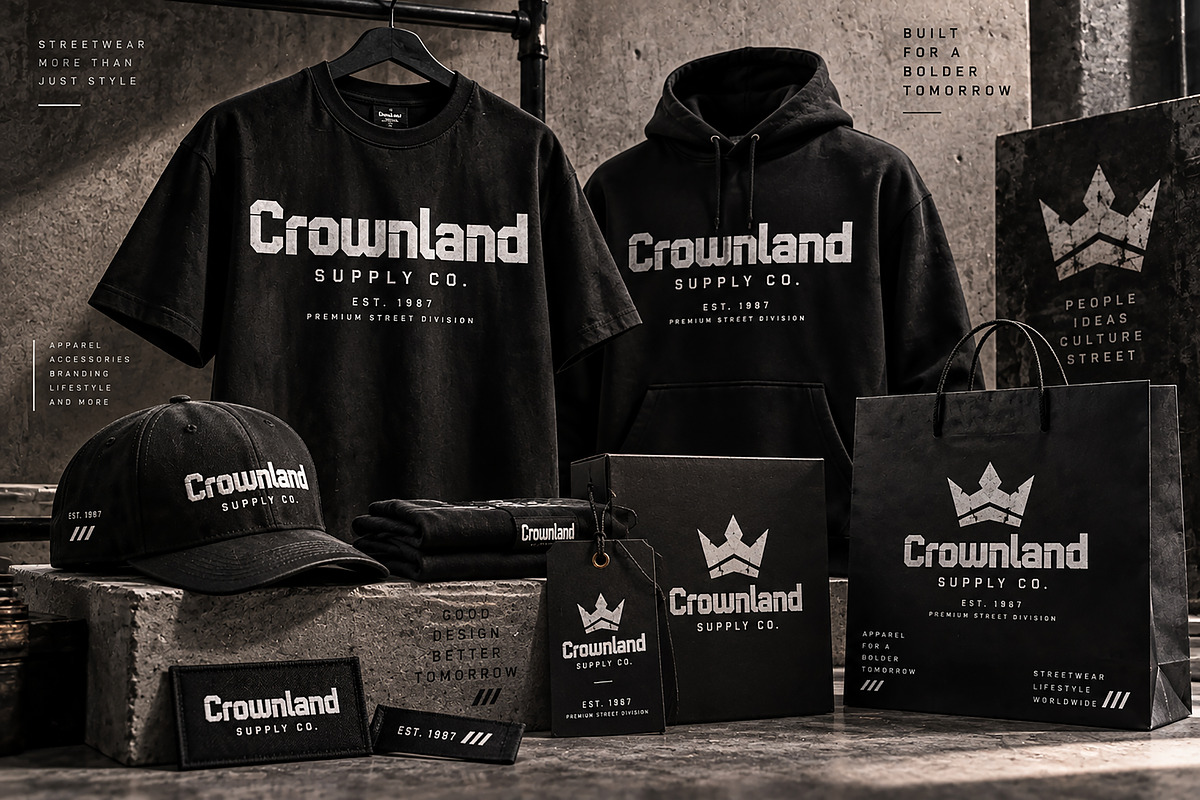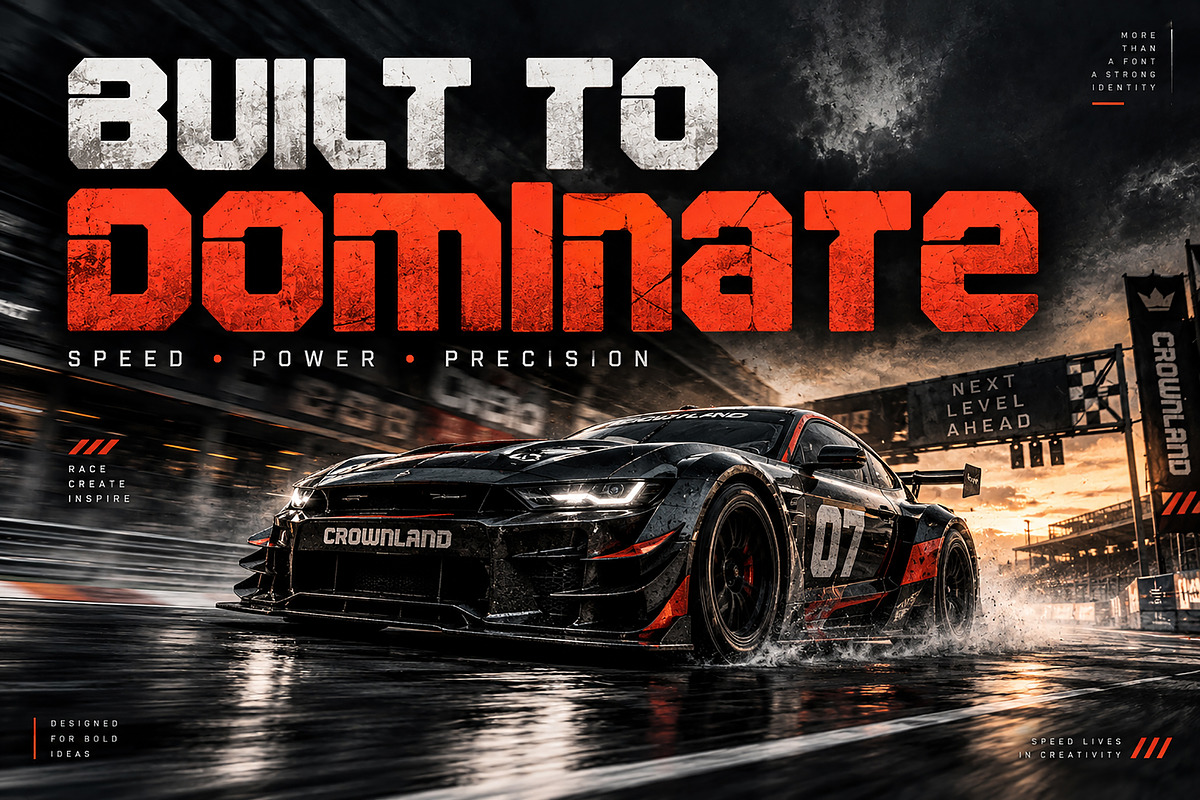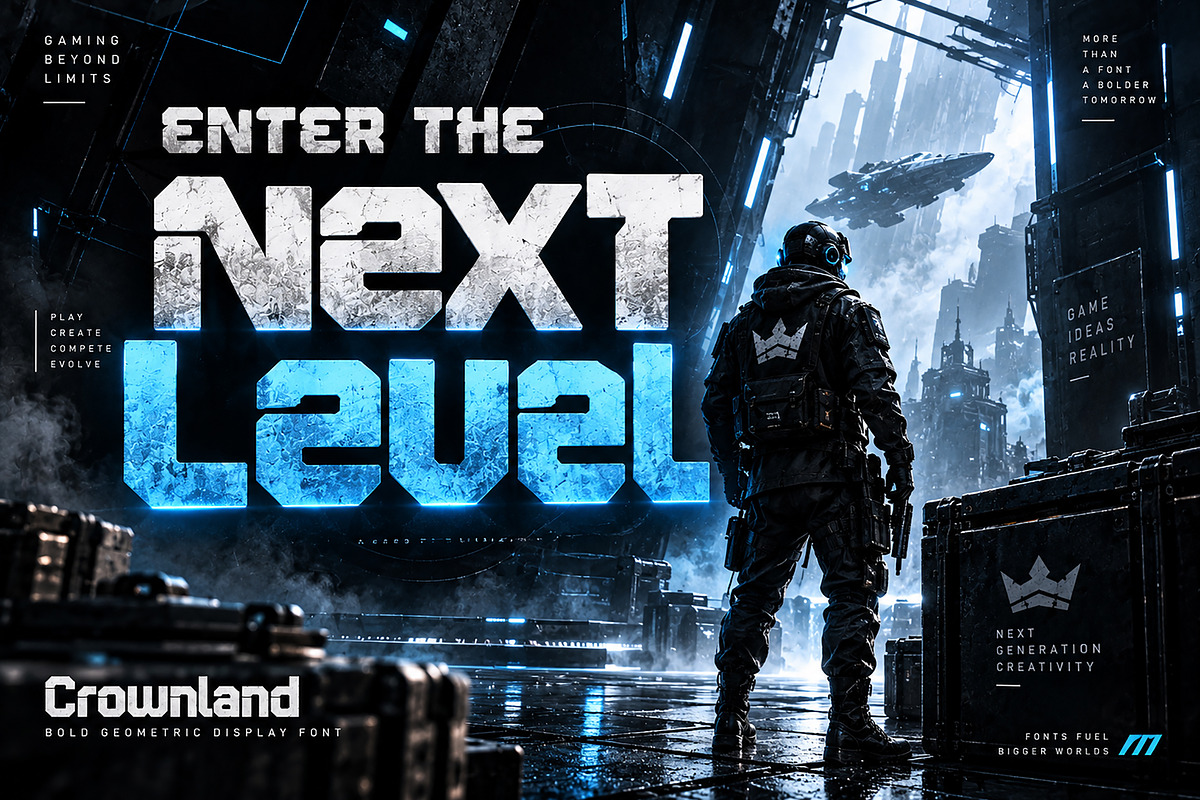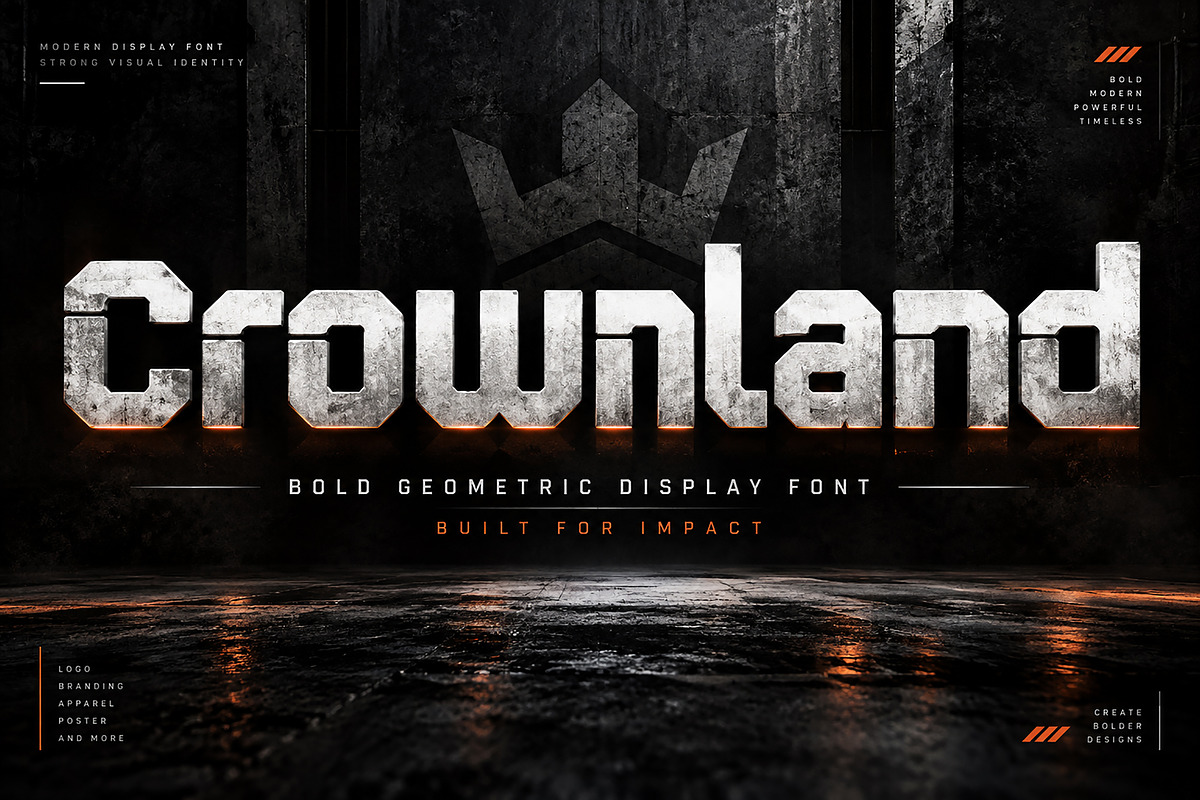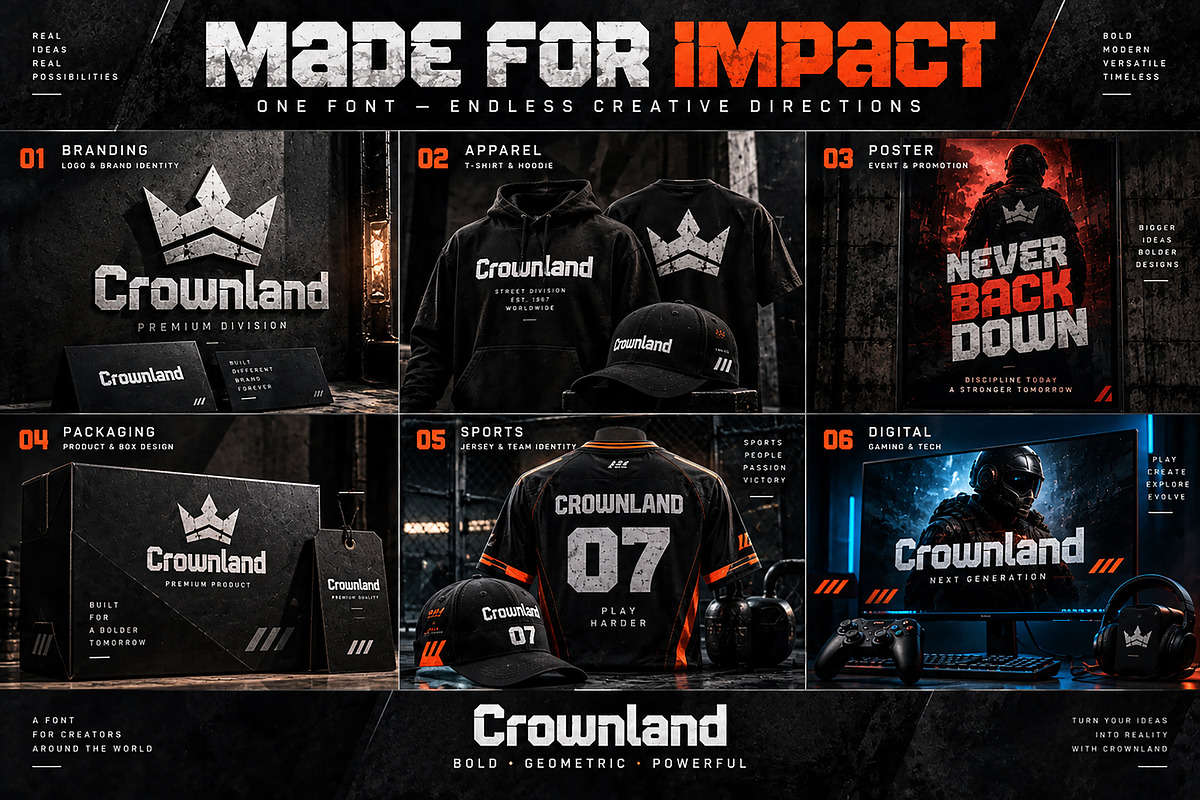
Crownland
Crownland — Bold. Geometric. Powerful.
Crownland is a bold geometric display font designed to bring a powerful, modern, and distinctive presence to your creative projects. Featuring a heavy construction, sharp angular details, and a strong architectural character, Crownland is made to stand out in high-impact designs.
Its bold visual personality works especially well for sports branding, streetwear, automotive graphics, gaming designs, esports identities, posters, logos, packaging, apparel, and modern promotional artwork.
Whether you are creating a striking brand identity, an energetic racing poster, a streetwear collection, or a futuristic gaming campaign, Crownland gives your typography a strong and confident visual impact.
Logo & Brand Identity
Sports & Motorsport Graphics
Streetwear & Apparel
Gaming & Esports
Automotive Designs
Posters & Advertising
T-Shirts & Hoodies
Event Branding
Modern Display Typography
Promotional Designs